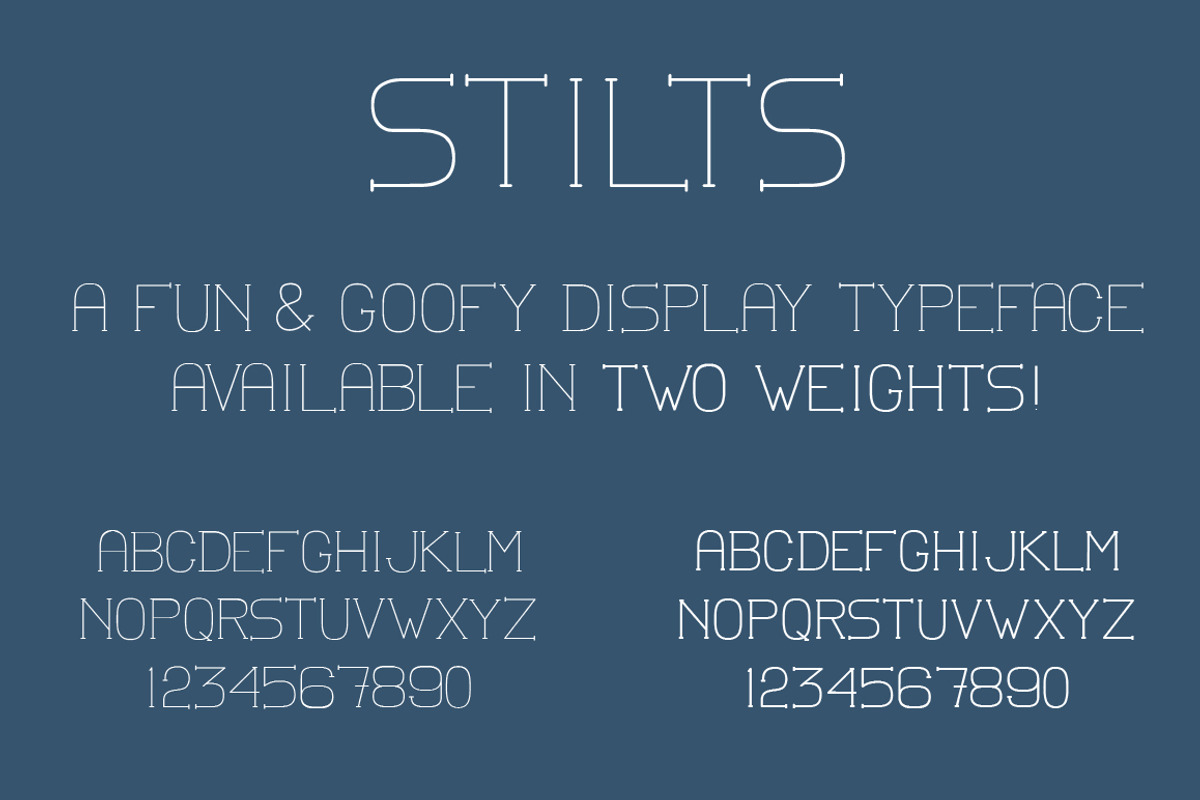
Stilts - Display Font
Stilts - Display Font by The Warehouse is a font selected for branding, posters, packaging, typography.
- This all uppercase display face is available in two weights, bold and regular.
- Stilts Regular
- Stilts Bold
Why Stilts - Display Font is worth a look
Stilts - Display Font by The Warehouse fits naturally into Branding, posters, packaging, typography.